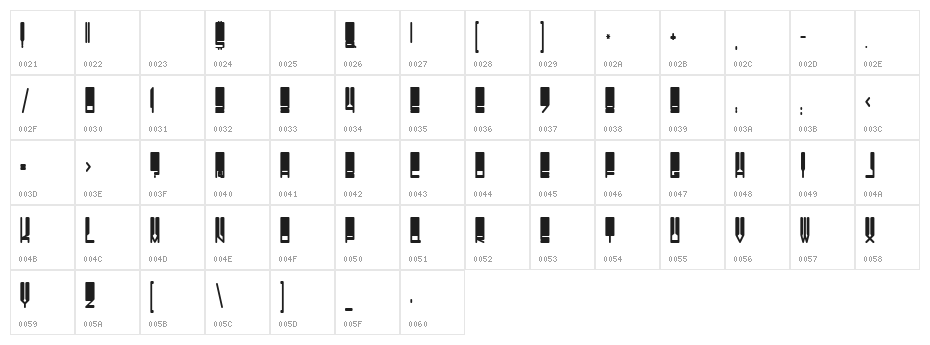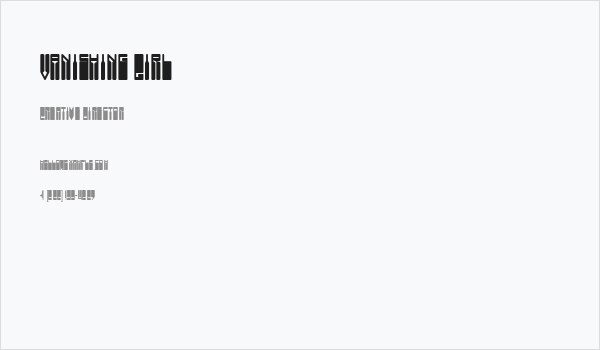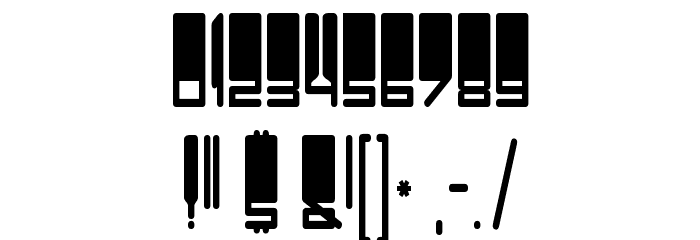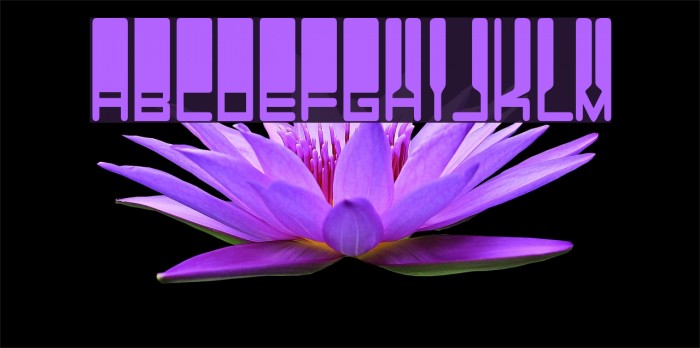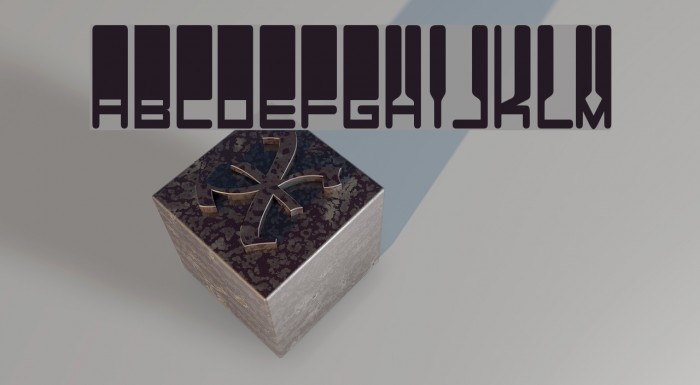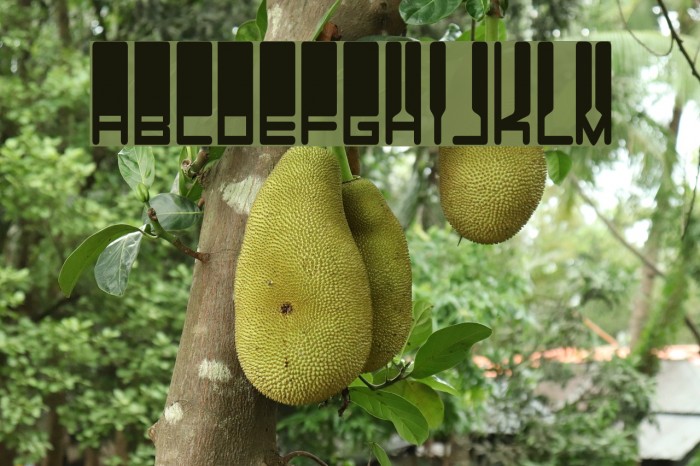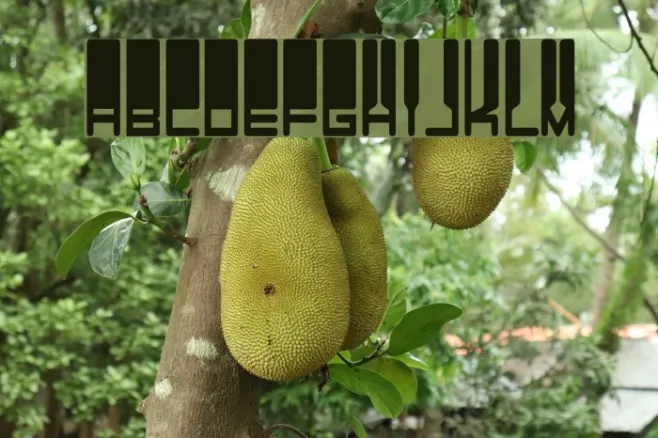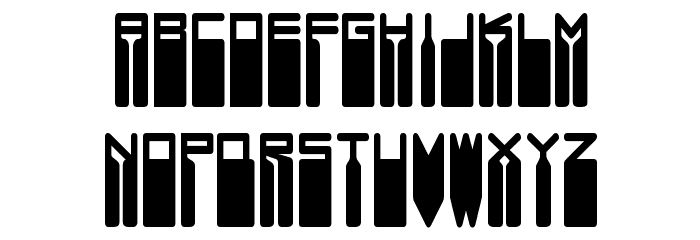
Vanishing Girl Font
Vanishing Girl Description
This font features a bold, geometric design with a futuristic and modern aesthetic. The characters are constructed with thick, block-like shapes that give a sense of solidity and strength. The uppercase letters are particularly striking, with a uniform height and width that creates a cohesive and structured look. The lowercase letters maintain the same boldness, ensuring consistency throughout the typeface. The numerals are equally robust, matching the style of the alphabetic characters. Special characters are included, adhering to the same design principles, making this font versatile for various applications. The overall appearance is both eye-catching and functional, ideal for projects that require a strong visual impact.